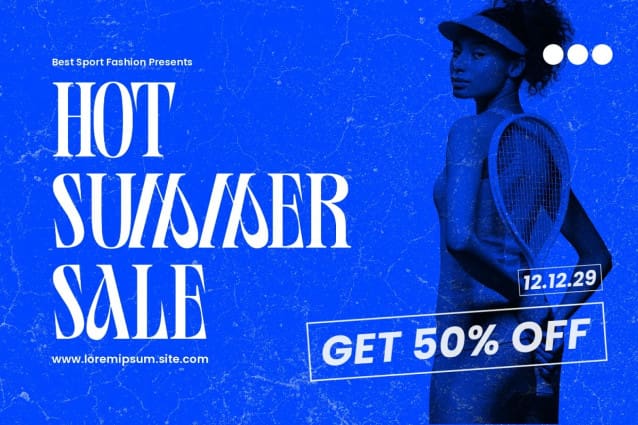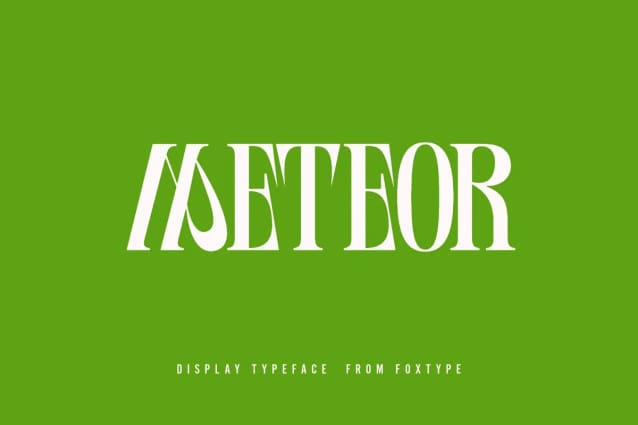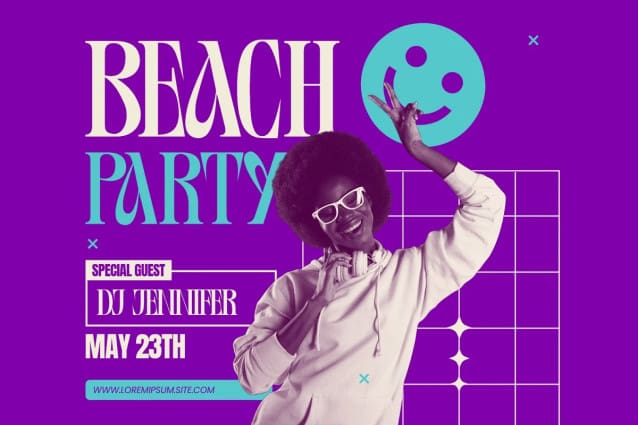
Meteor Font
Meteor Font – new generation Decorative Typeface. Meteor Typeface created with the vision of to attract the audience to your brand. The finest details of this typeface are methodically and mathematically created. Meteor is created with all the tasks of a corporate font and also for the usage in a variety of projects, including branding, logos, titles, headlines, posters, screens, display, digital ads, and everything else.